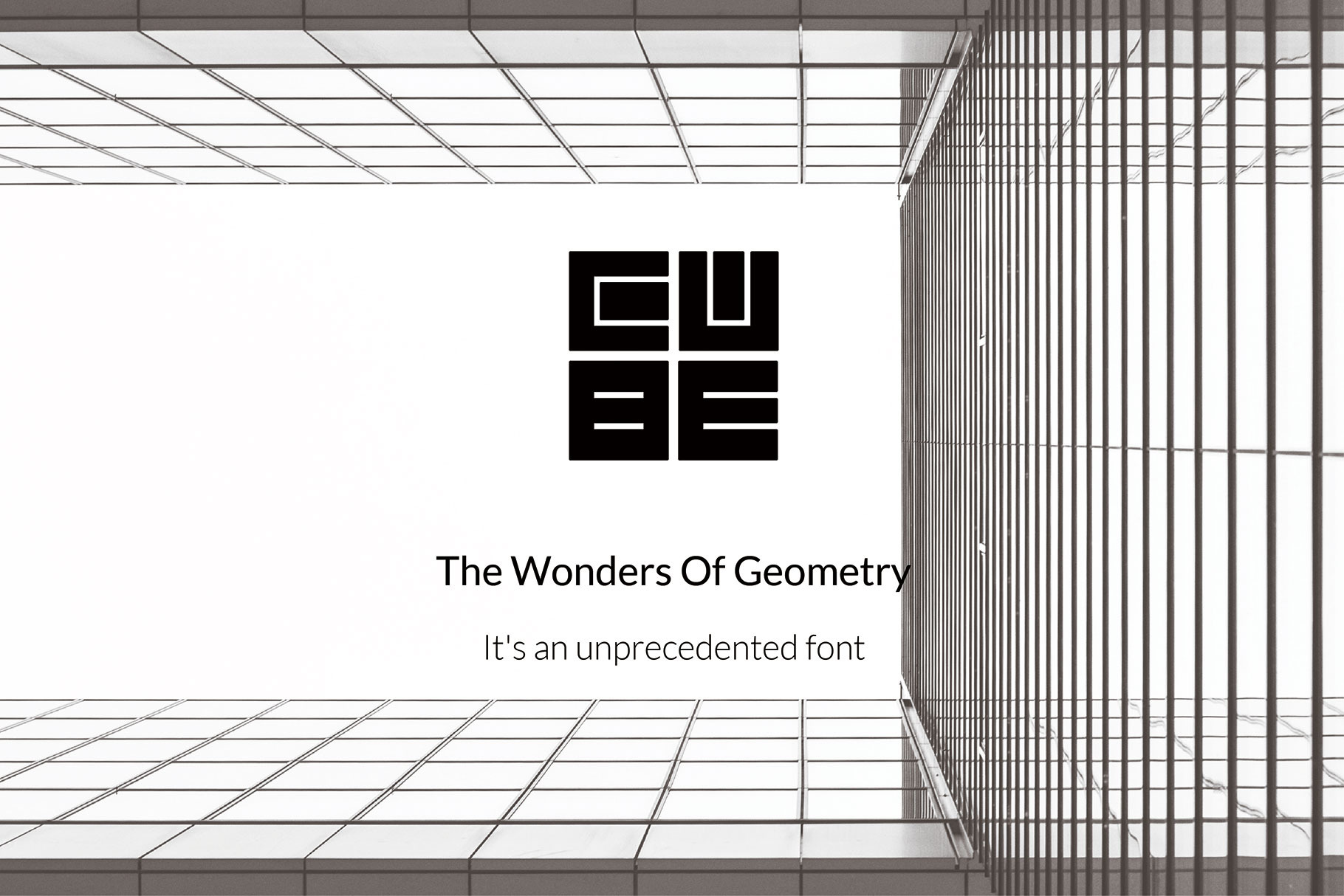
Cube-Font
It's an unprecedented font,It’s the ultimate in simplicity.Installation is very simple.Suitable for: web design,plane design,magazine, etc. It is very cool It is suitable for making logo